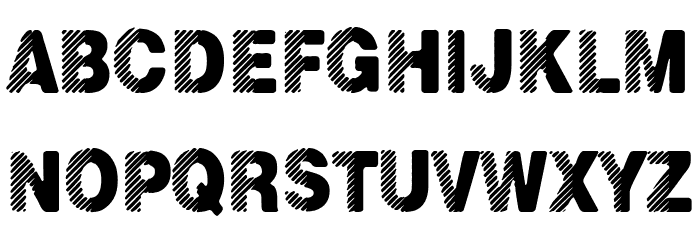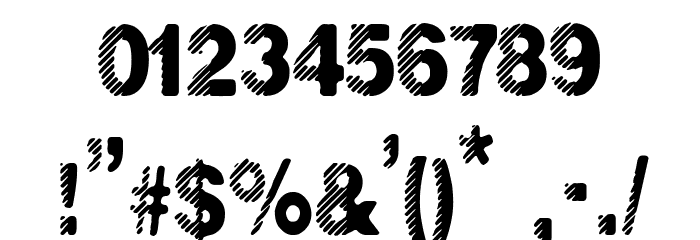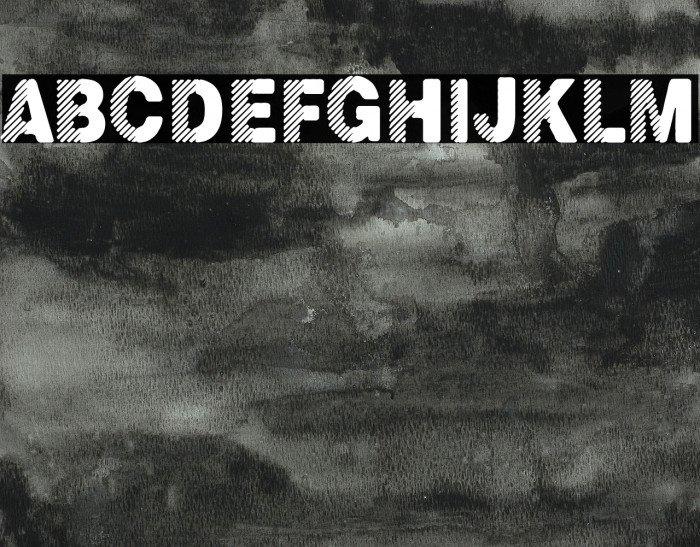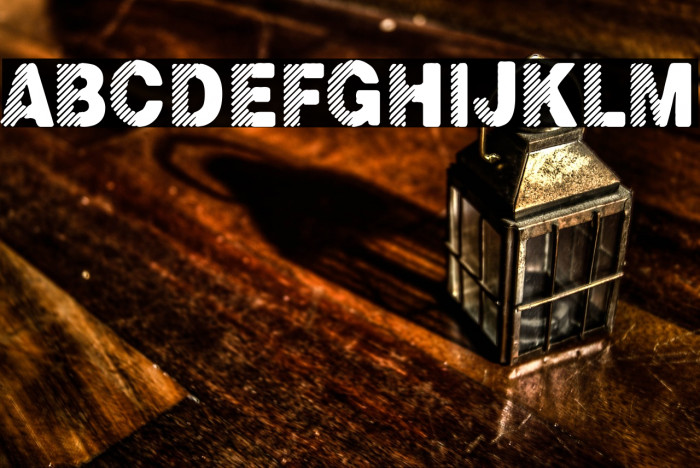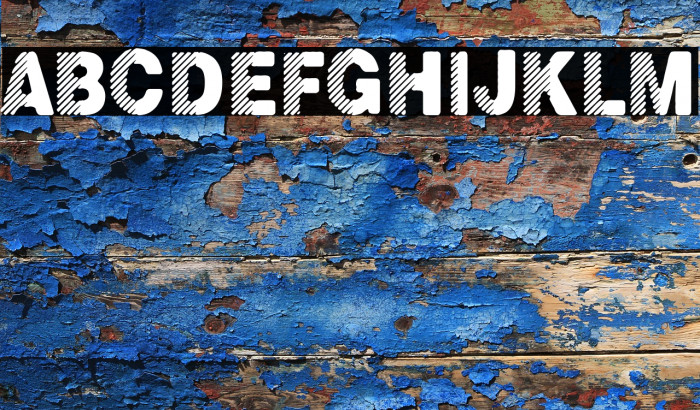
Metalurgia Sexual Font
This font features a bold, decorative style with a unique striped pattern running diagonally across each character. The uppercase and lowercase letters, as well as numbers and special characters, maintain a consistent weight and style, creating a cohesive look. The design is eye-catching and modern, with a playful yet structured appearance. The stripes add a dynamic texture, making it suitable for projects that require a standout visual element. The font's boldness ensures readability while the decorative elements add flair.
A bold, decorative font with diagonal stripes across each character.
- Proposed Projects: Ideal for posters, branding, headlines, and any design needing a bold, decorative touch.
- Overall Style: Modern, Decorative